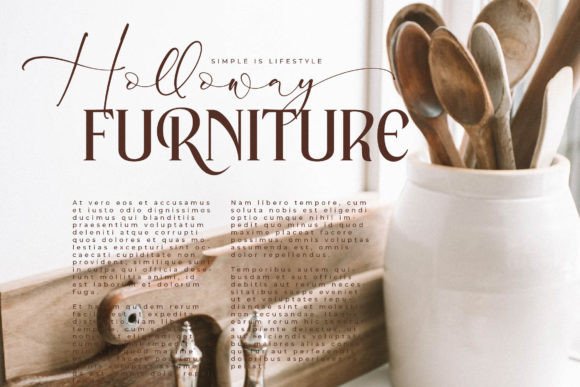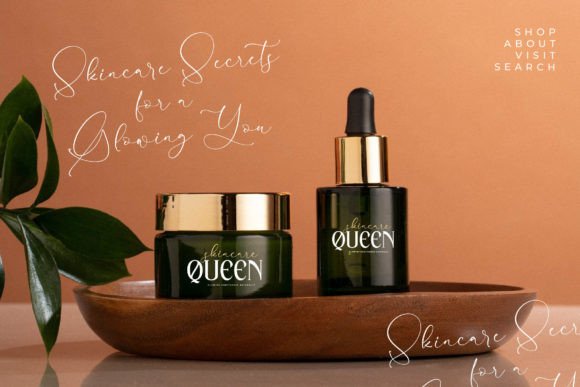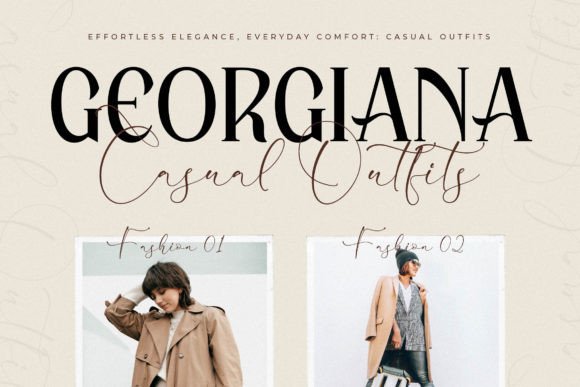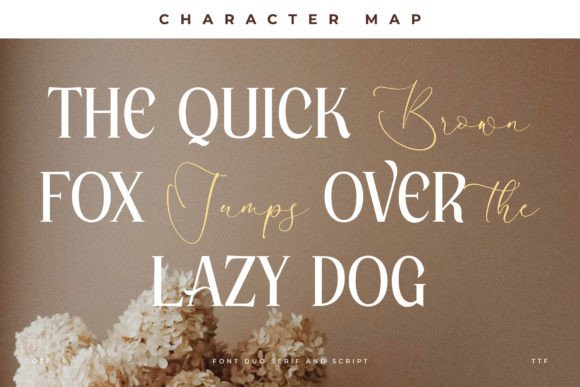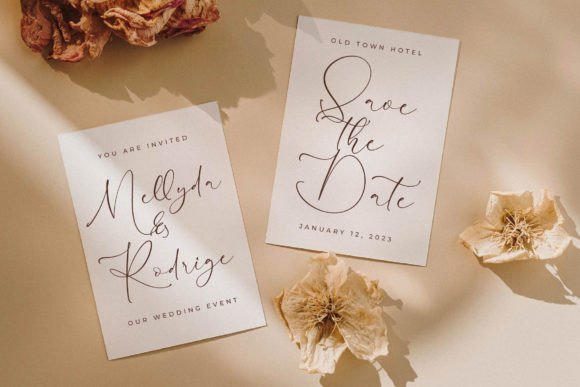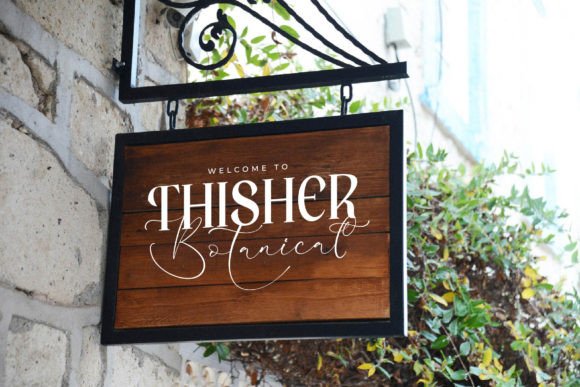
Introduction to Kingdom Estella Font
Have you ever stared at a blank canvas, searching for the perfect font to bring your creative project to life? I’m sure many designers can relate to that feeling of frustration and excitement that comes with the hunt for the ideal typography. That’s exactly what happened to me when I stumbled upon the Kingdom Estella Font. Its elegant and modern style immediately caught my attention, and I knew I had to dive deeper.
As a design enthusiast, I’m always on the lookout for high-quality resources that can elevate my projects. The Kingdom Estella Font is a game-changer, offering a unique blend of serifs and script elements that make it perfect for luxury logo designs, book titles, and magazine covers. With its versatility and sophistication, it’s no wonder that designers are falling in love with this font.
Key Features of Kingdom Estella Font
- High-quality, elegant script font perfect for creative projects and designs.
- Comes with a transparent background, allowing for easy layering and customization.
- Features a high-resolution design, ideal for use in print and digital applications.
- Unique characteristics include swashes, flourishes, and ligatures, adding a touch of sophistication to any design.
Honest Review: Kingdom Estella Font
As a designer, I’m always on the lookout for high-quality design resources that can elevate my creative projects. The Kingdom Estella Font caught my eye, and I decided to give it a try. Overall, I’m impressed with the results.
- ✨ Unique and elegant design aesthetic that’s perfect for modern branding and design projects.
- ✨ High-quality fonts with clear and crisp typography.
- ✨ Transparent background, allowing for easy integration with other design elements.
However, I do have some limitations to note:
- ⚠️ Limited font styles and variations, which may not be ideal for designers who require a wide range of options.
- ⚠️ Some users may find the font a bit too modern or trendy, which may not suit all design styles.
Tips for Getting the Most Out of Kingdom Estella Font
To maximize the impact of your design, experiment with different font sizes, colors, and combinations. Use the font’s transparent background to create visually appealing overlays or graphics. Consider pairing the font with other design resources to create a unique and eye-catching visual identity.
Common Use Cases for Kingdom Estella Font
The Kingdom Estella Font is suitable for a wide range of creative projects, including branding, marketing materials, and digital graphics. Its unique style and high quality make it an attractive option for designers, artists, and businesses looking to create distinctive and engaging visuals.